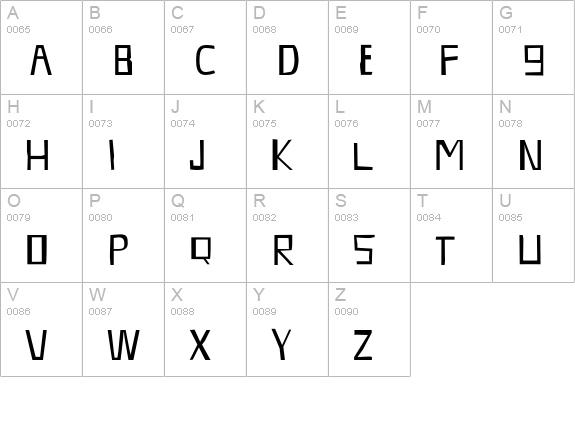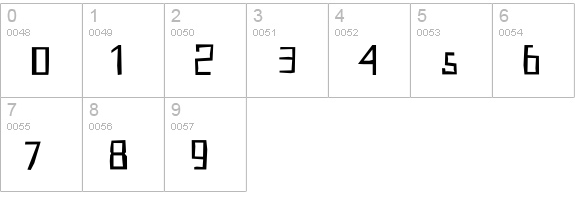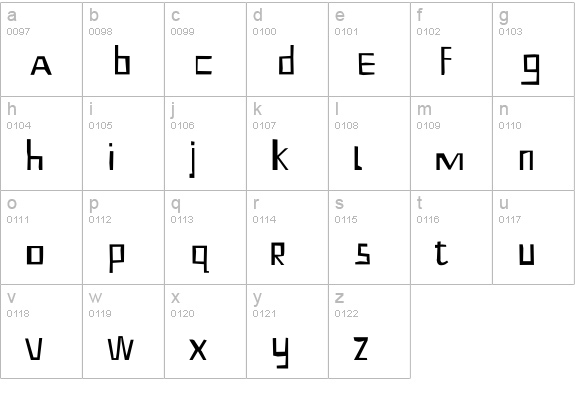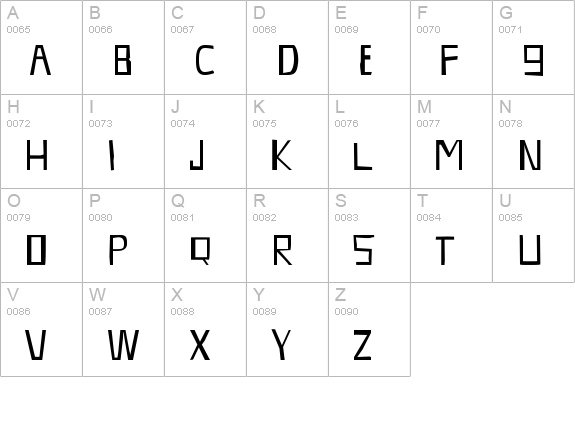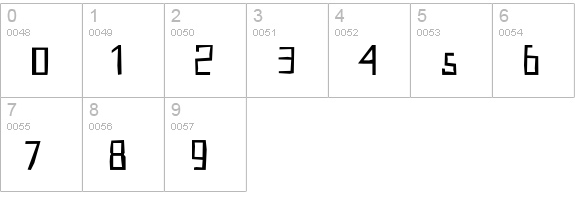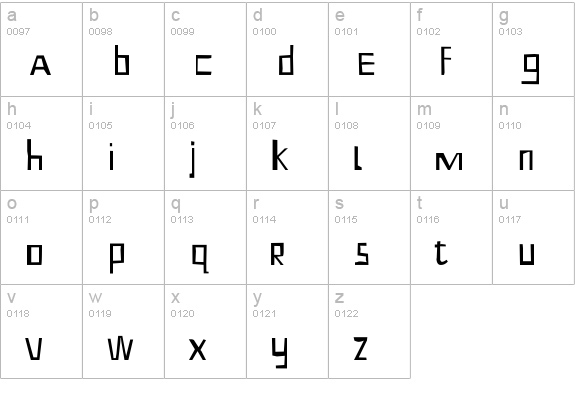
ShoeRepairs-Regular Font Details
ShoeRepairs-Regular is the standard, neutral variant in the ShoeRepairs typeface family \xE2\x80\x94 well suited to general body text, paragraphs, and standard typographic work.
ShoeRepairs-Regular font is a versatile and stylish typeface that is perfect for all your shoe repair-related projects. It features a clean and modern design with a touch of elegance, making it suitable for both professional and casual applications. This font offers a wide range of characters, including uppercase and lowercase letters, numerals, punctuation marks, and special symbols. Its legible and well-defined letterforms ensure clear and easy readability, guaranteeing that your message will be conveyed with utmost clarity. One of the best features of ShoeRepairs-Regular font is that it is freely available to download at FontsMarket.com. This means that you can access this amazing font without any cost, making it a budget-friendly option for designers, businesses, and individuals alike. Whether you need to create eye-catching signage for your shoe repair shop, design a logo for a footwear brand, or simply add a touch of elegance to your personal projects, ShoeRepairs-Regular font is the perfect choice. Its versatility and timeless appeal make it suitable for a wide range of design applications. Download ShoeRepairs-Regular font for free at FontsMarket.com and add a touch of sophistication to your shoe repair-related projects. With its clean and modern design, this font is sure to leave a lasting impression on your audience. Stand out from the crowd and enhance your designs with the distinct style of ShoeRepairs-Regular font.